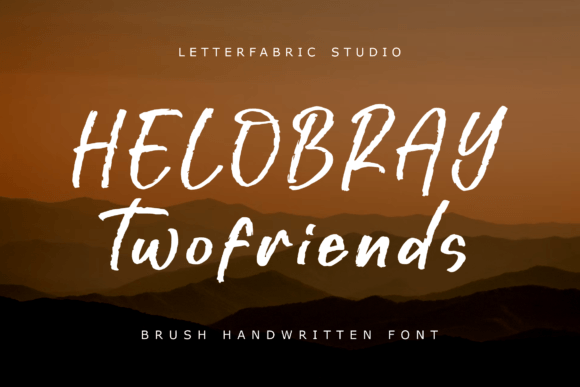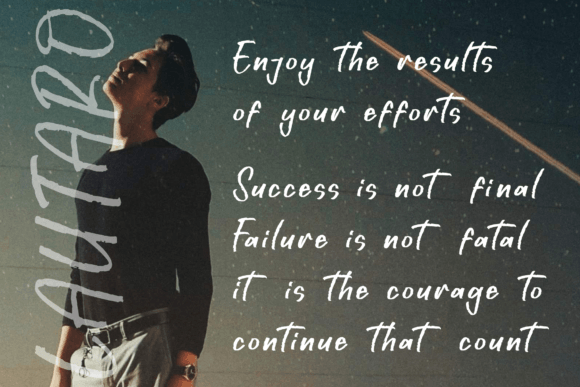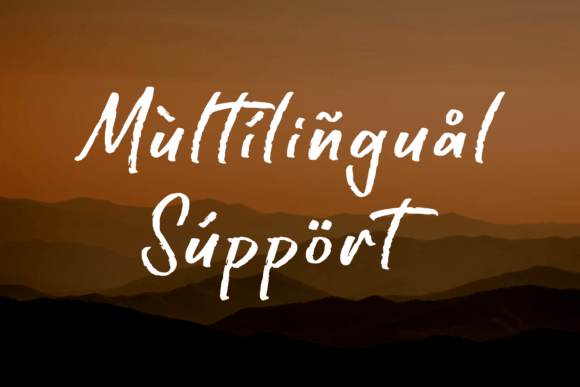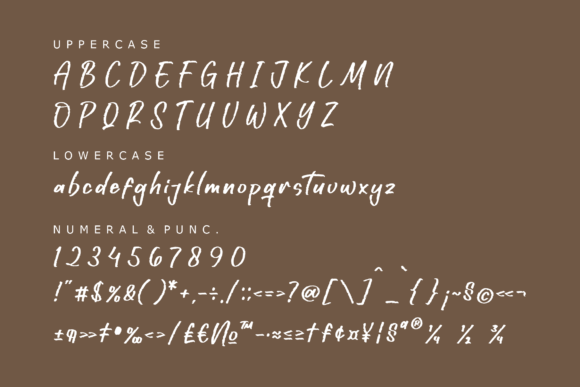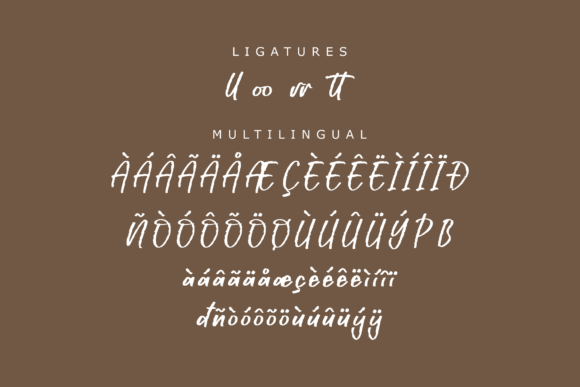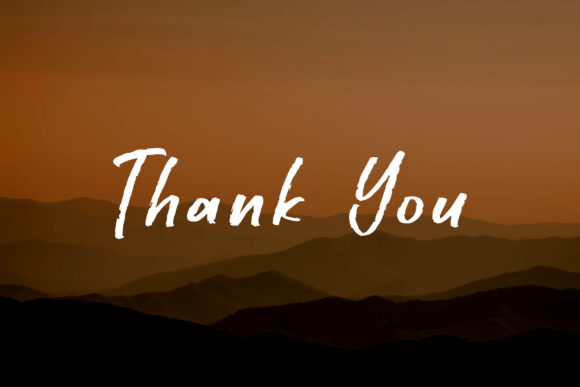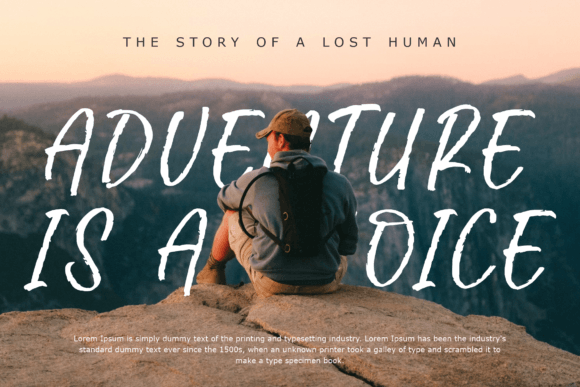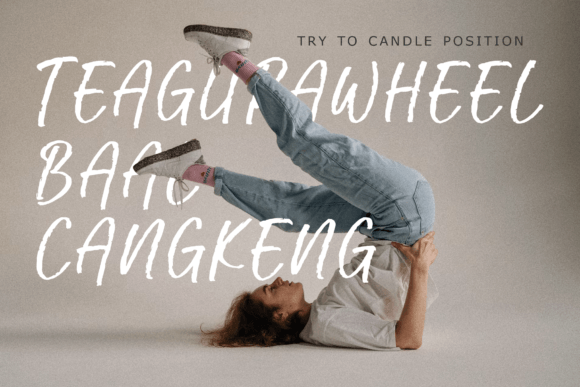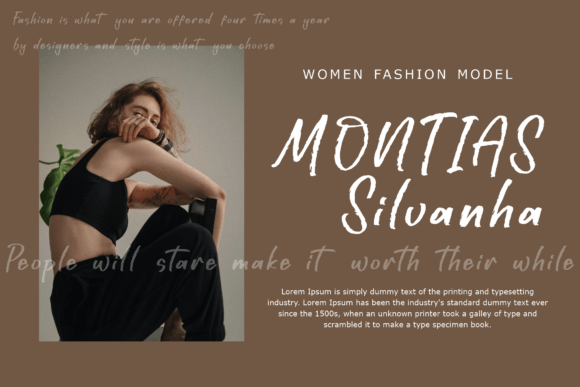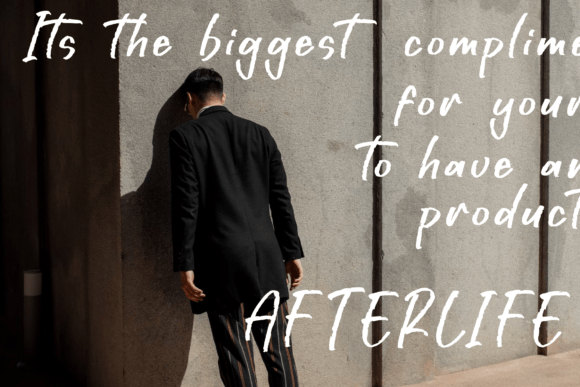
Helobray Twofriends Font
Looking to add a confident and artistic flair to your designs? The Helobray Twofriends Font download is your perfect match. This bold brush handwritten font captures the essence of free-flowing creativity, while maintaining elegance and readability. Whether you’re designing logos, branding assets, or standout product packaging, this font brings a handcrafted, expressive feel to your work.
Helobray Twofriends features a rich and dynamic brush stroke style that mimics natural handwriting. It’s full of personality—perfect for projects that aim to convey authenticity, creativity, or a human touch. Designed with smooth curves and natural movement, it feels both artistic and intentional, making it ideal for a wide variety of design needs.
Perfect for a Wide Range of Design Projects
The Helobray Twofriends Font download is suitable for nearly every creative project. Its expressive brush style works beautifully across:
• Logos and Branding: Create striking brand identities with an authentic, handcrafted feel
• Product Packaging: From cosmetics to beverages, this font enhances product labels and boxes
• T-Shirts & Apparel: Standout slogans or handwritten phrases look amazing with this font
• Mugs & Homeware Designs: Adds a playful, homey look to lifestyle products
• Quotes & Posters: Makes motivational quotes pop with a bold brush touch
• Social Media Graphics: Perfect for eye-catching Instagram, Pinterest, and Facebook posts
• Event Materials: Beautiful on invitation cards, signage, and thank-you notes
• Book Covers & Journals: Adds flair to children’s books, planners, or recipe notebooks
• Business Cards: Offers a custom-made impression that feels unique and personal
With its natural brush texture, Helobray Twofriends pairs well with minimalist design elements or layered giving you endless room to play.
Features and Compatibility
Why Designers Love It
Designers looking for an eye-catching font that balances boldness with charm will find Helobray Twofriends indispensable. It stands out in headlines, yet it retains a fluid, relaxed vibe that makes. The natural brush strokes real hand lettering, giving your project a creative and personal tone.
Whether you’re crafting a boutique brand, launching a product line, or designing a heartfelt message, the Helobray Twofriends Font download offers a dynamic and stylish solution.